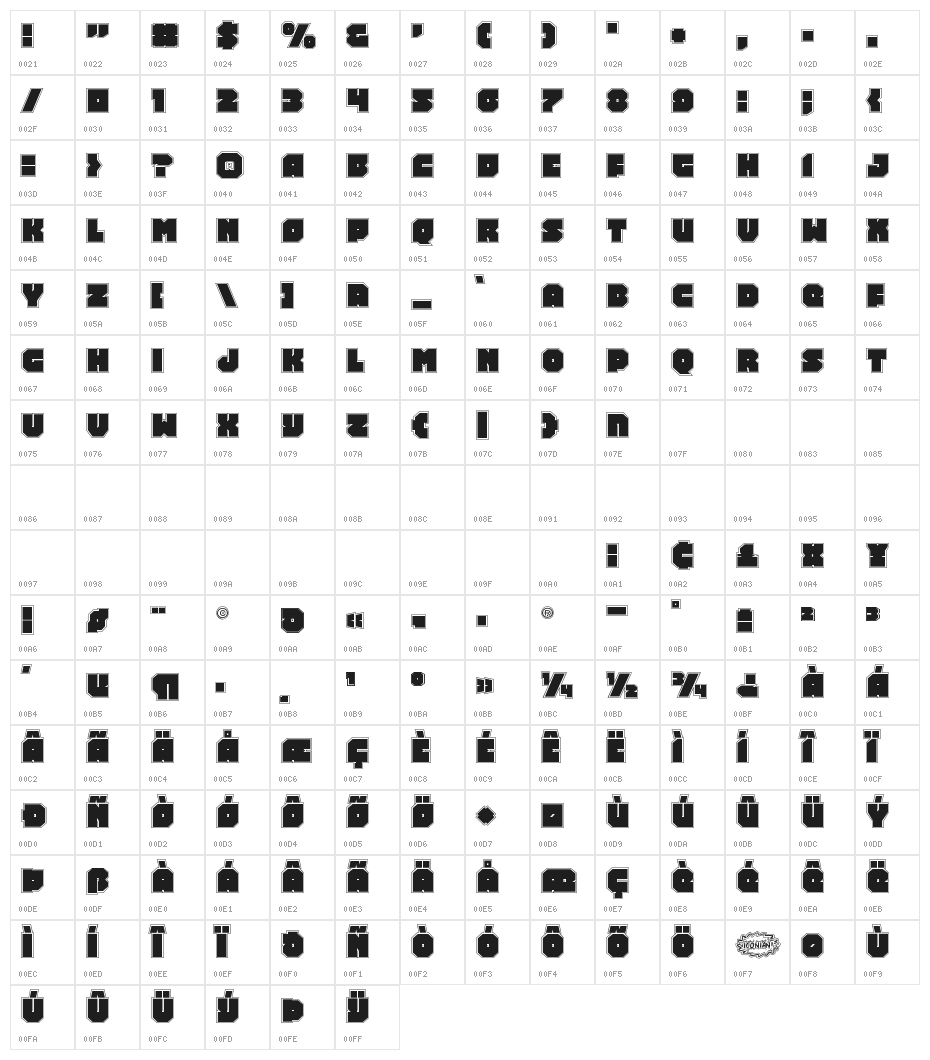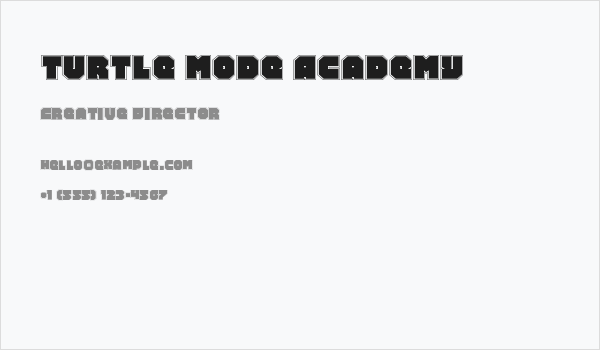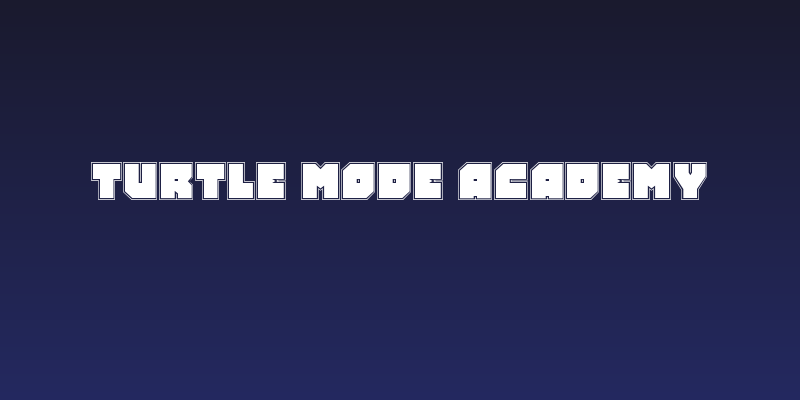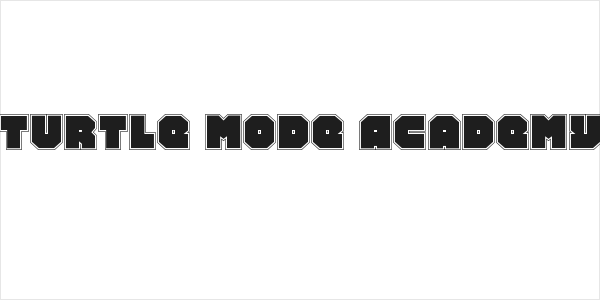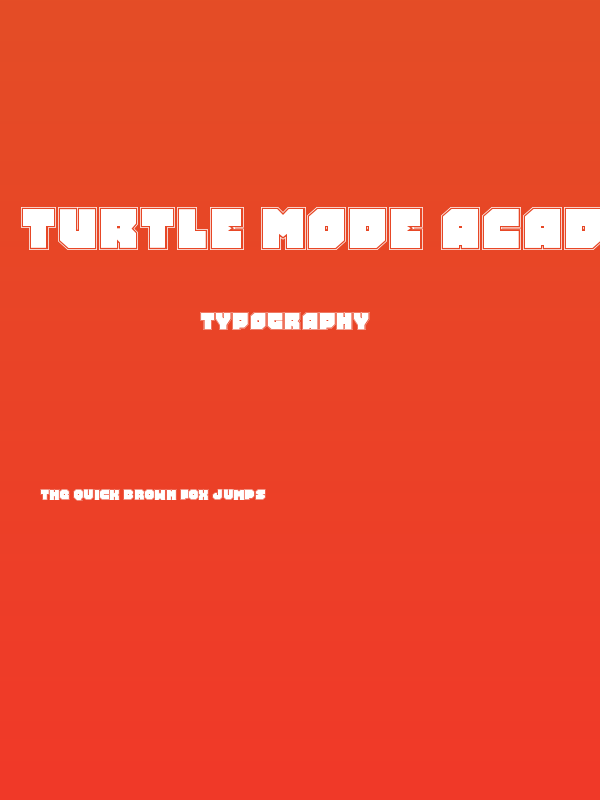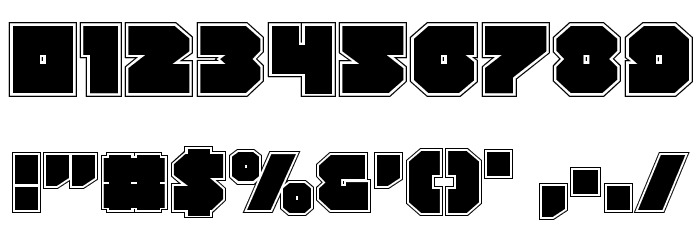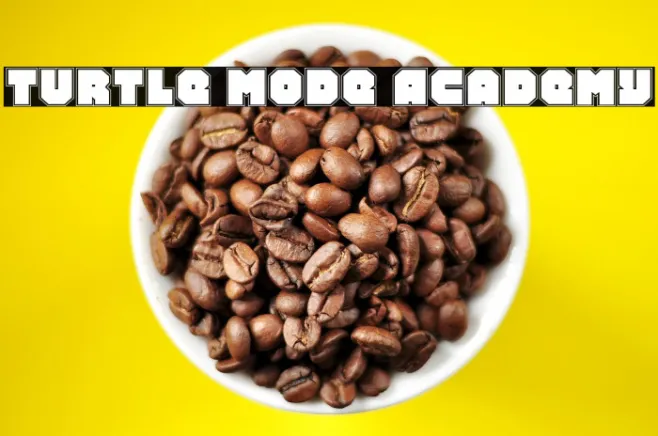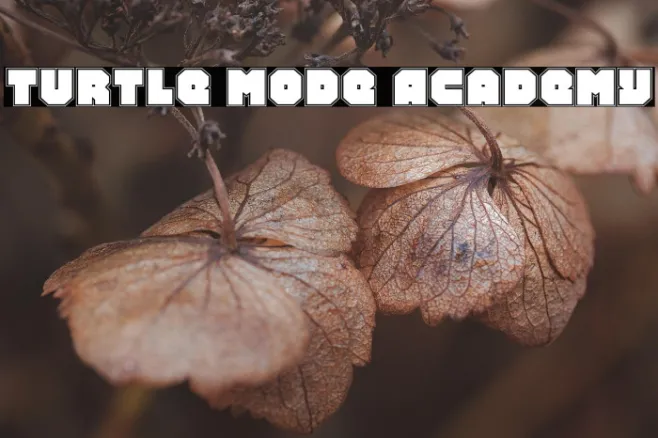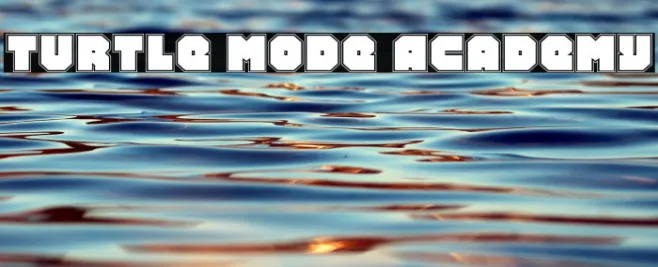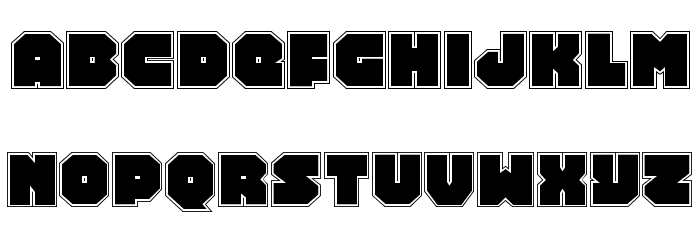
Turtle Mode Academy Font
Turtle Mode Academy Description
This font features a bold, geometric design with a strong presence. Each character is crafted with sharp, angular edges and a solid fill, creating a striking and impactful appearance. The thick strokes and uniform weight give it a robust and sturdy look, making it ideal for attention-grabbing headlines or titles. The spacing between characters is tight, enhancing its compact and cohesive style. The font's unique, blocky structure is reminiscent of retro or arcade aesthetics, adding a playful yet assertive touch to any project.
| Overall Style | Retro, Decorative |
| Proposed Projects | Ideal for video game titles, posters, logos, and any project requiring a bold, retro aesthetic. |